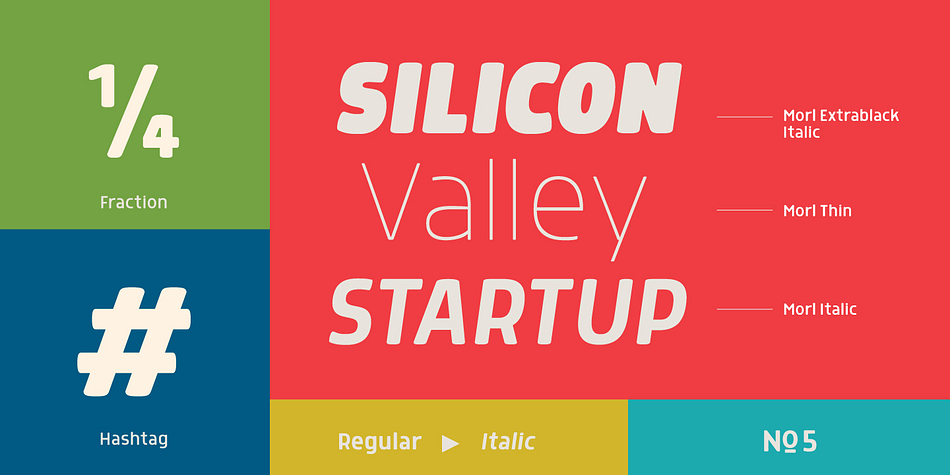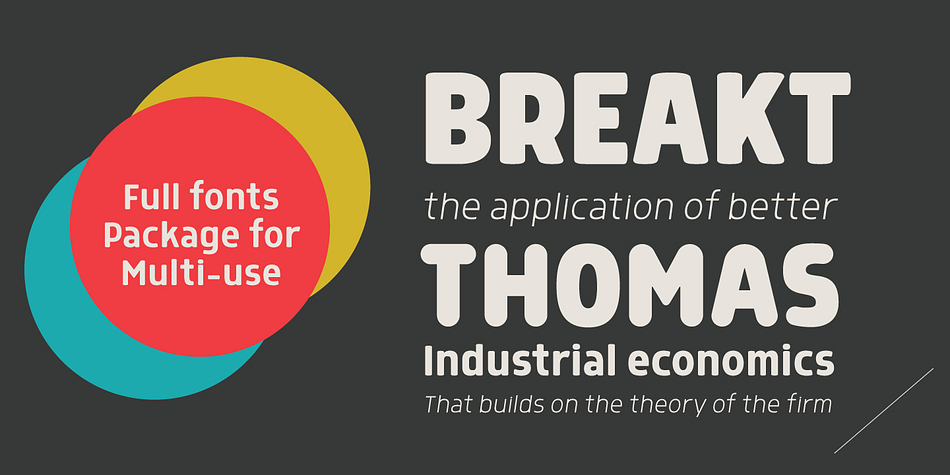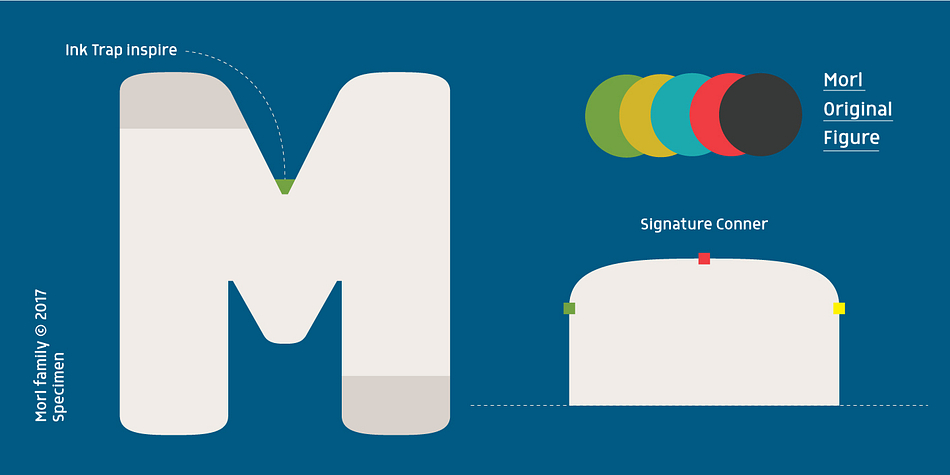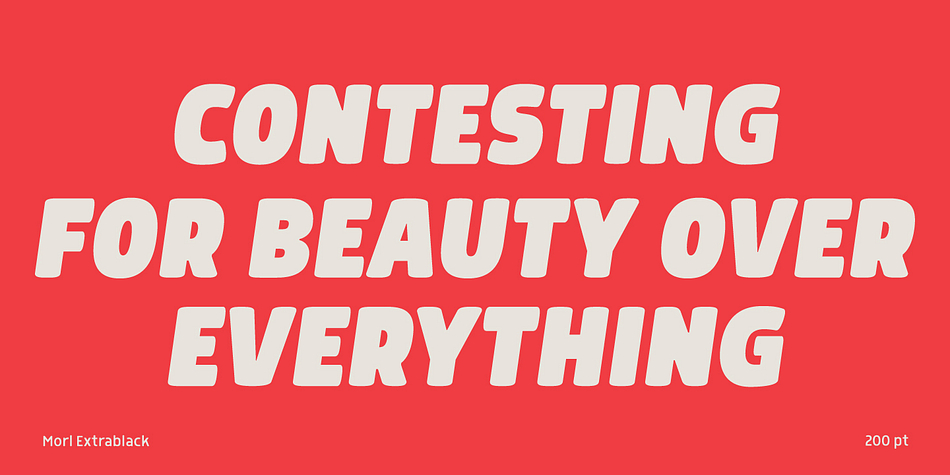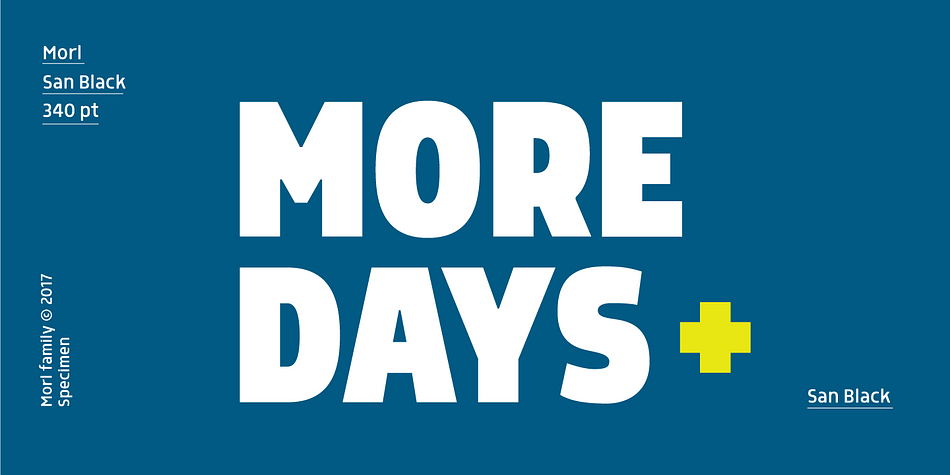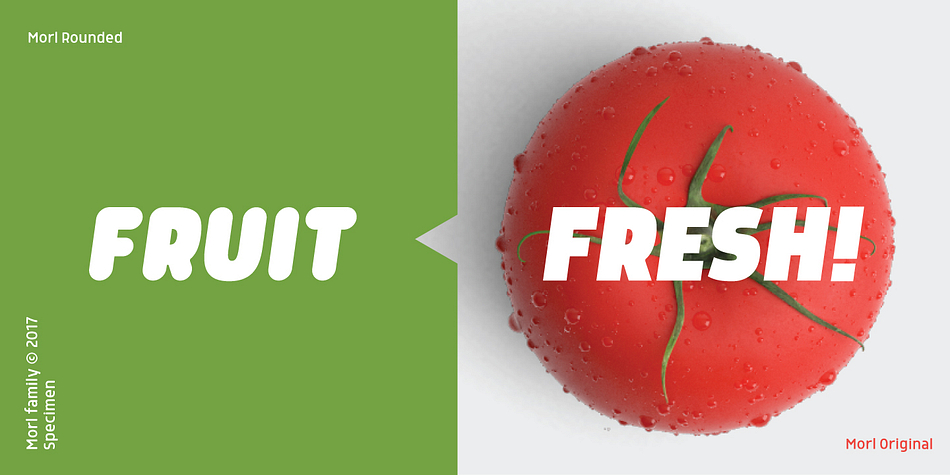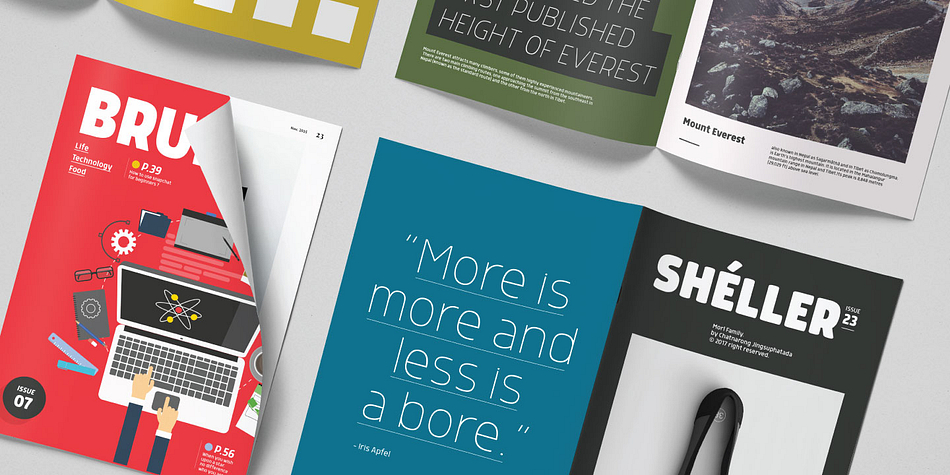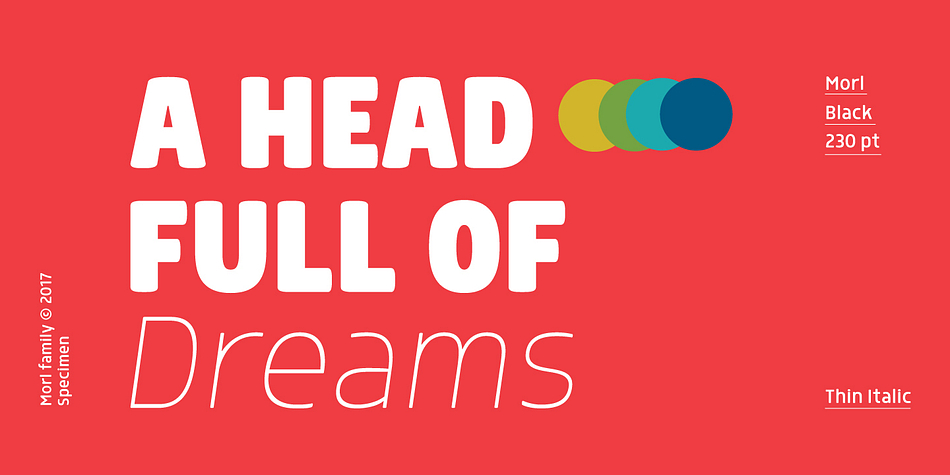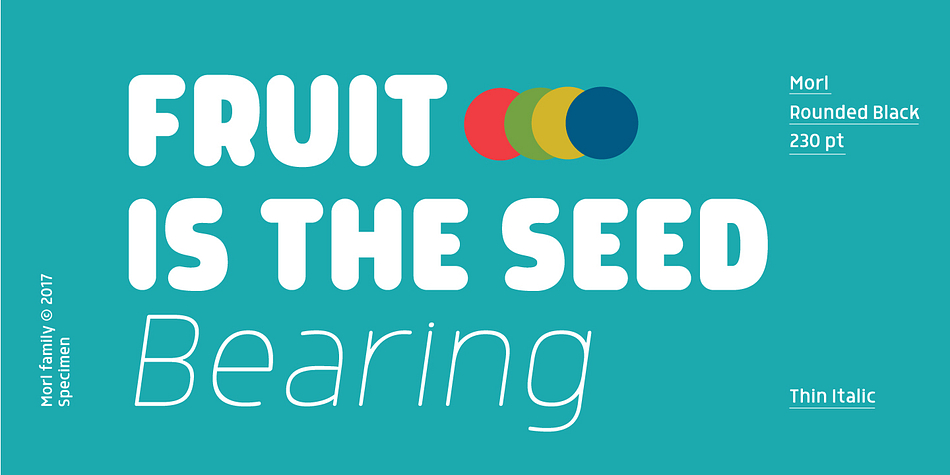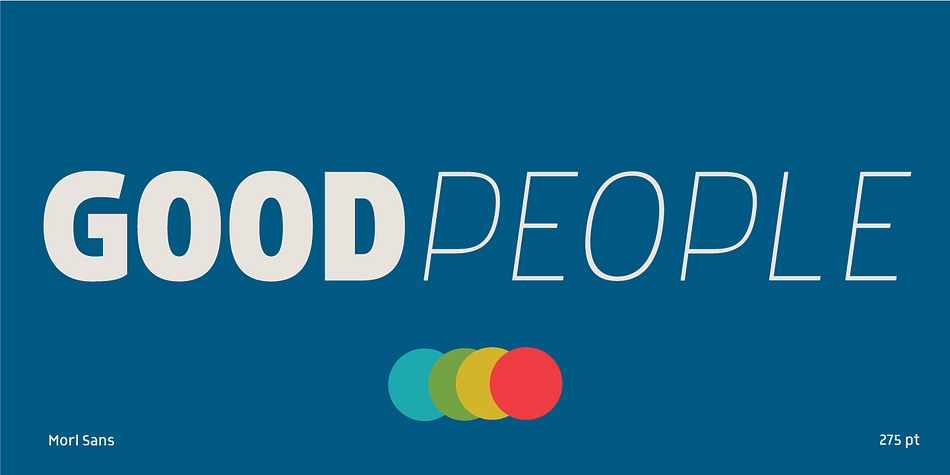
Morl is a sans serif font family. This typeface has sixty styles and was published by Typesketchbook.
Developed from condensed san serif families of the 90’s to 00’s, Morl brings together the distinctive features of the time but presented in a simpler design.
Its potential is increased with Original, Sans, and Rounded options which offer varied moods.
Suitable for publications, web and product designs, Morl can fit either headlines or body. It’s also effectively supported in various devices.
The family comes in 10 weights, making it available to use for your required tasks in 60 styles.